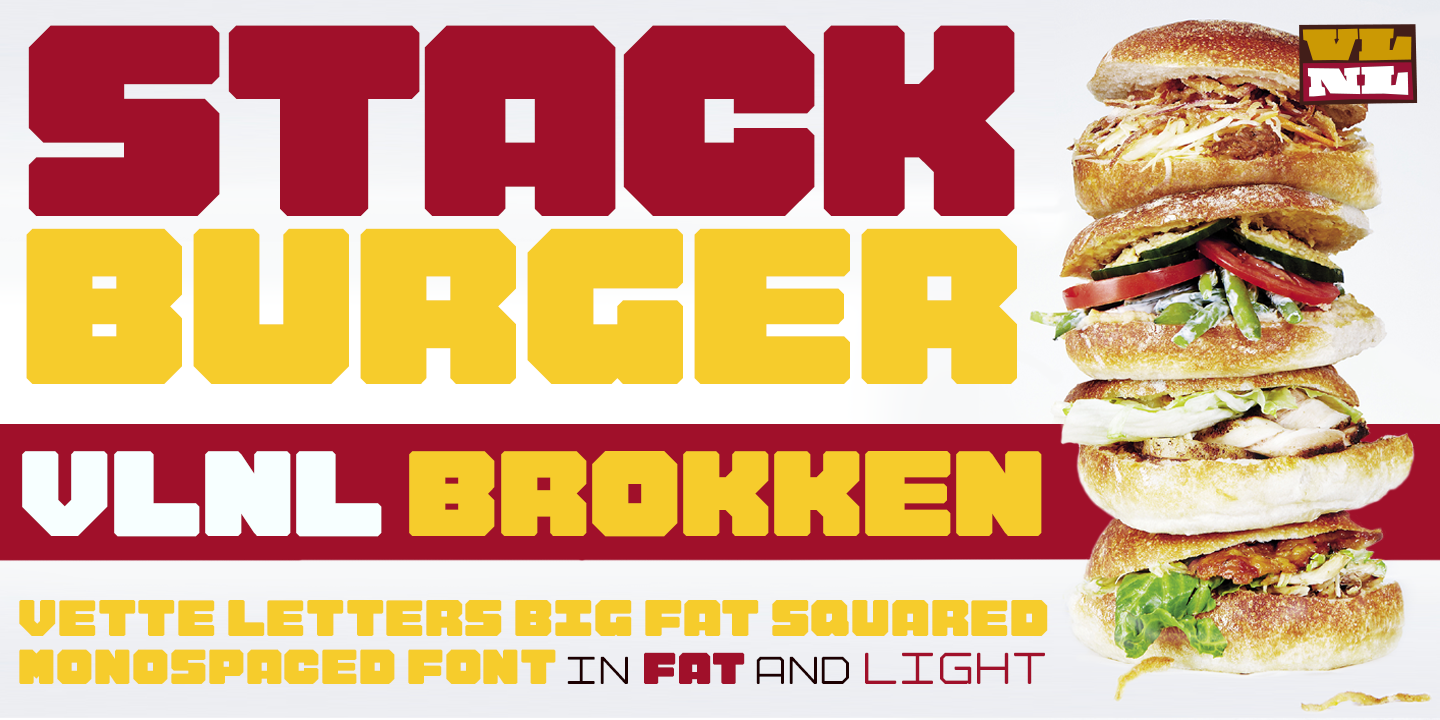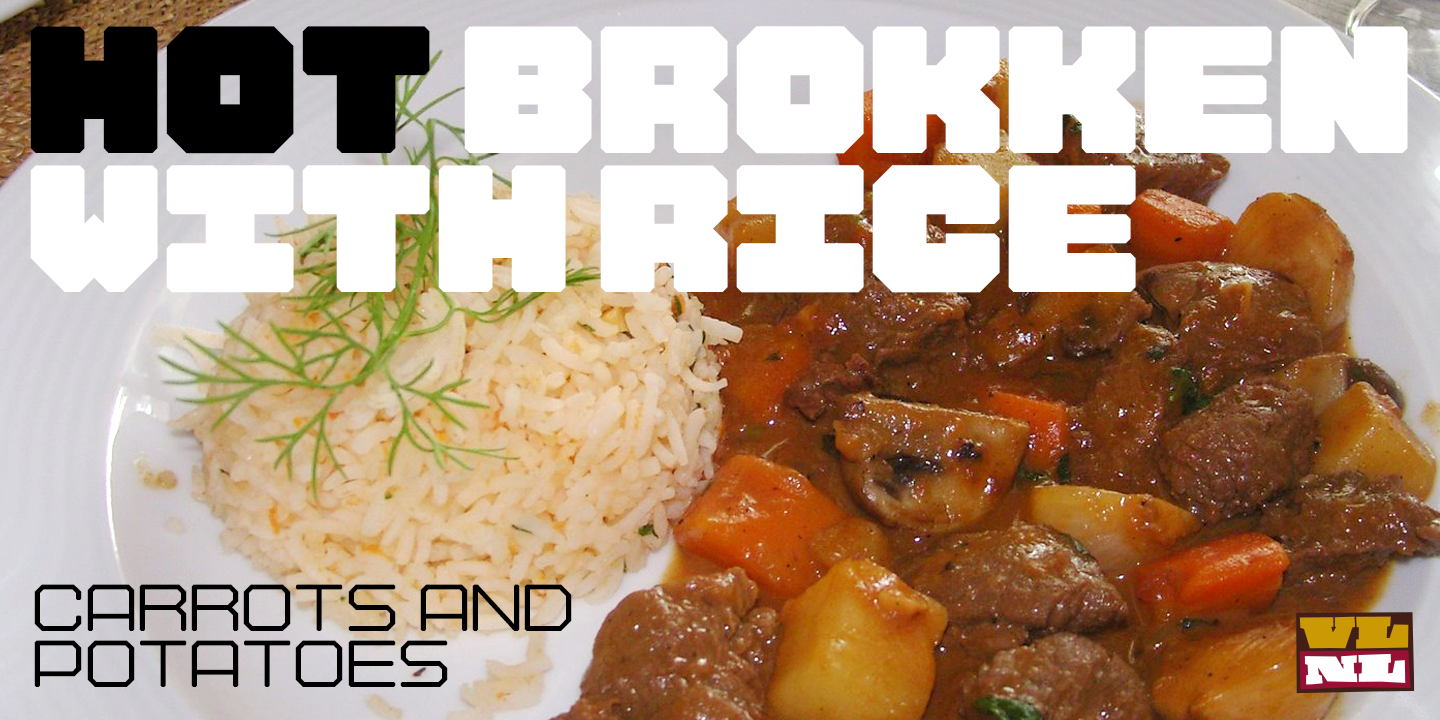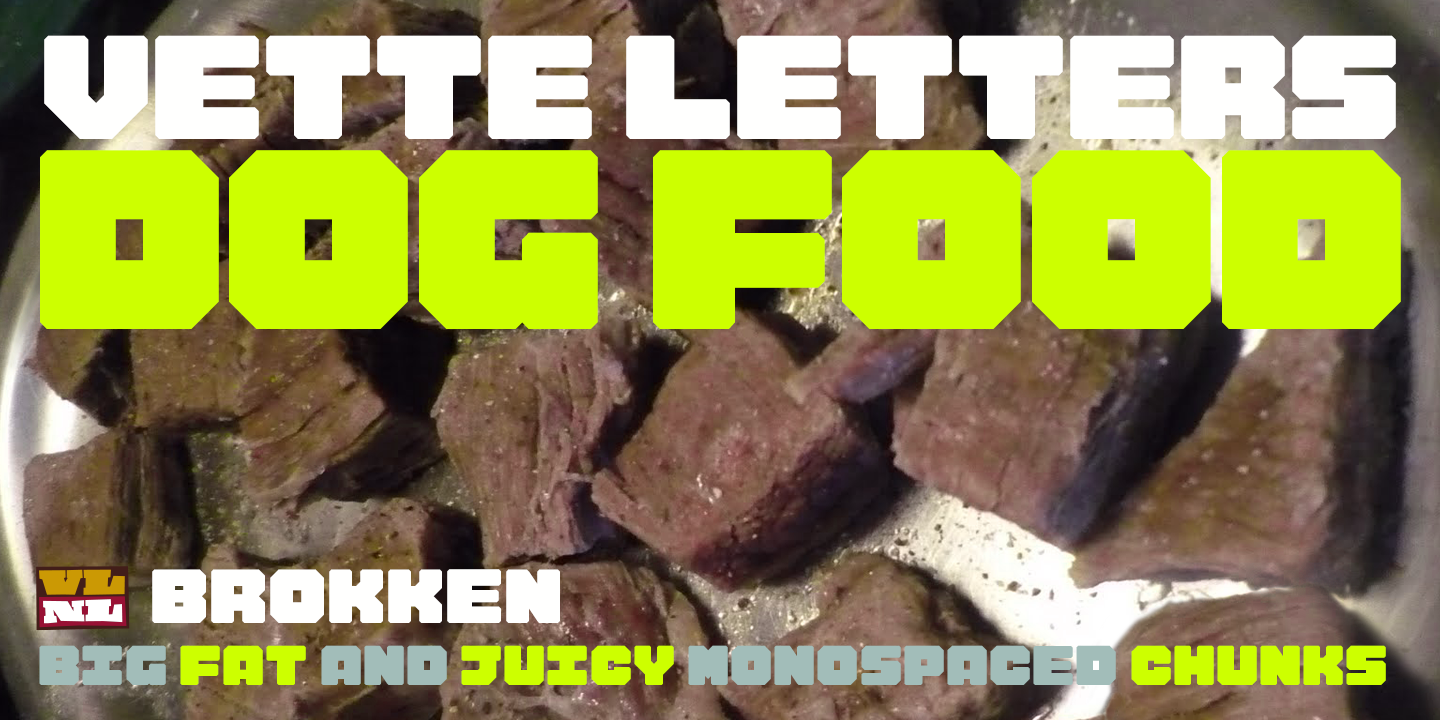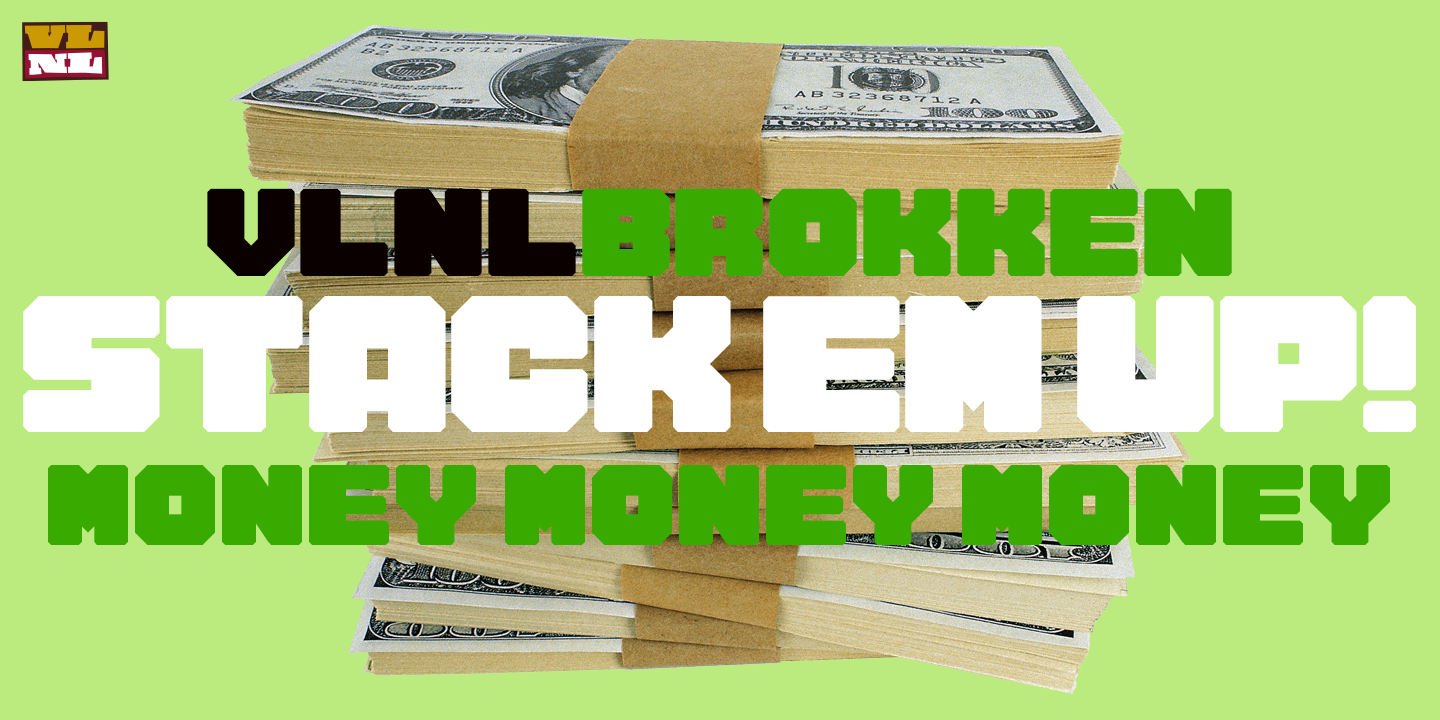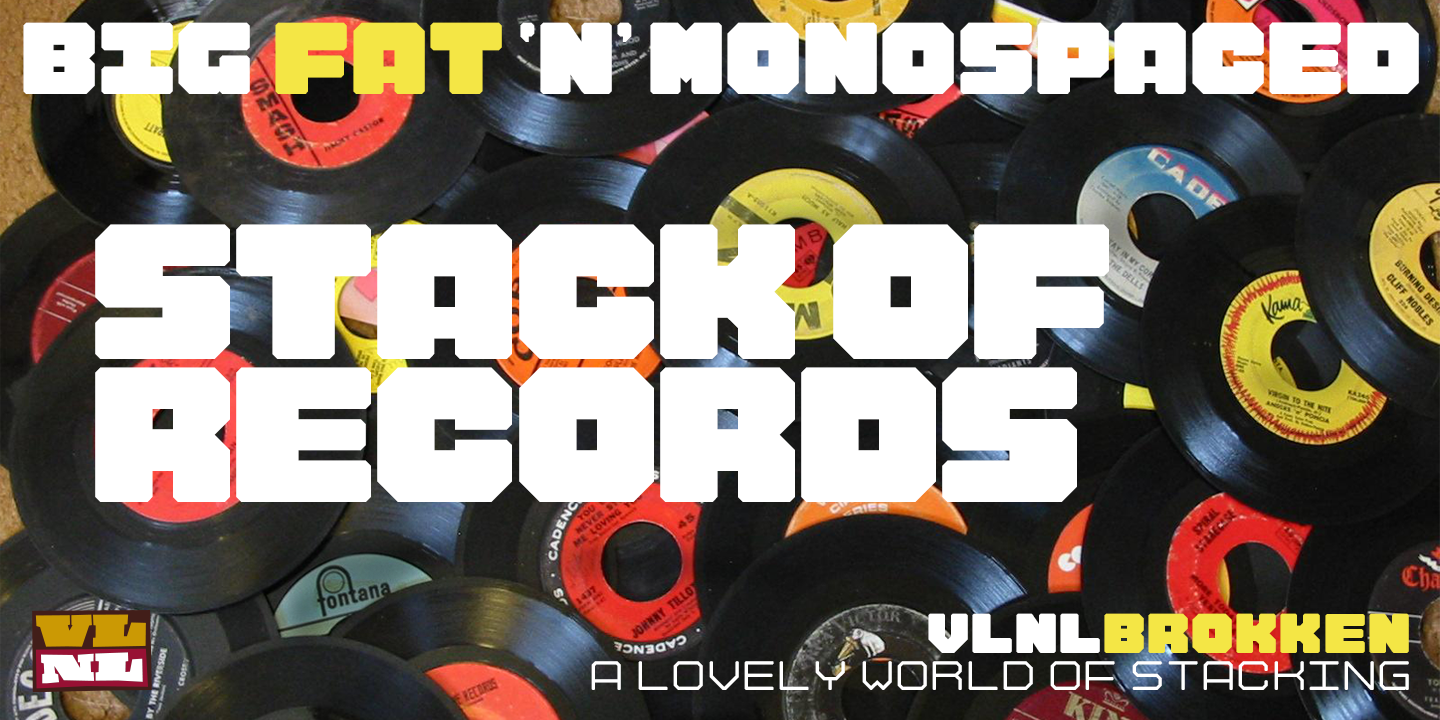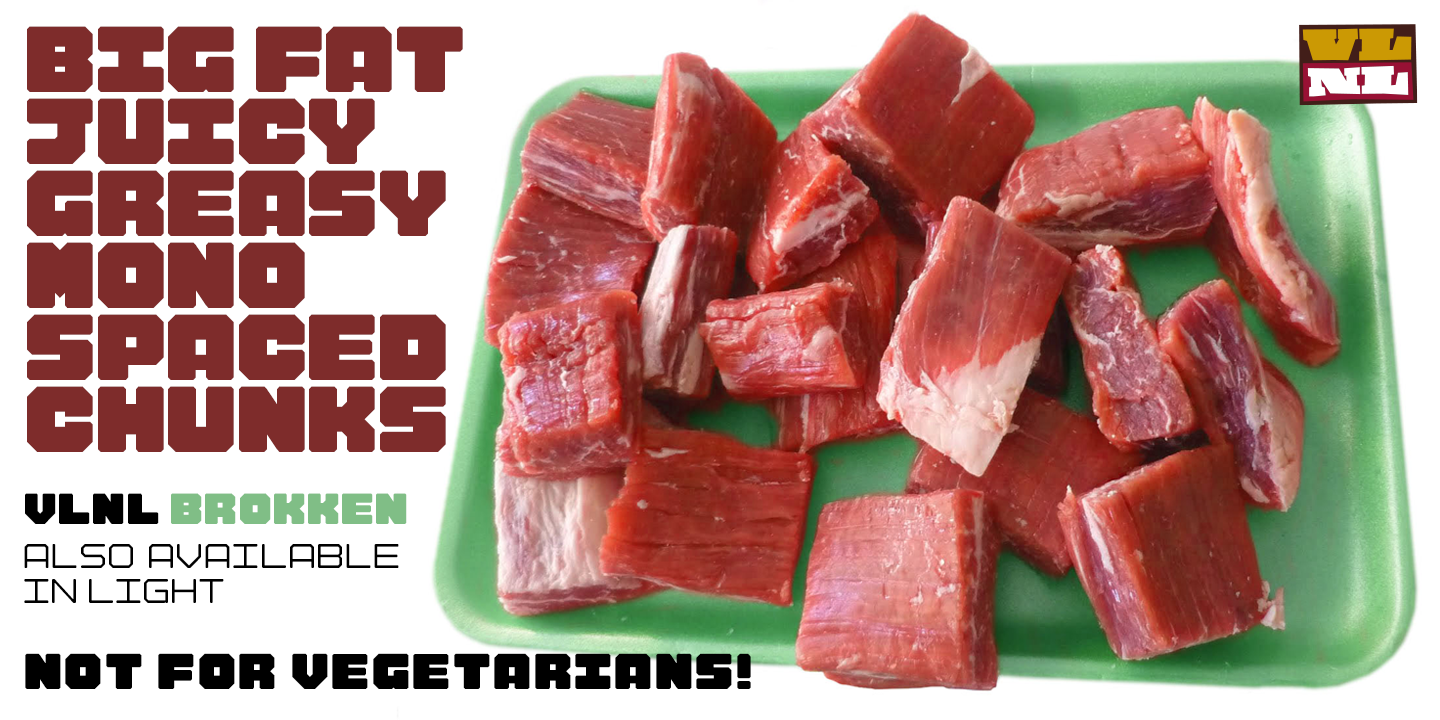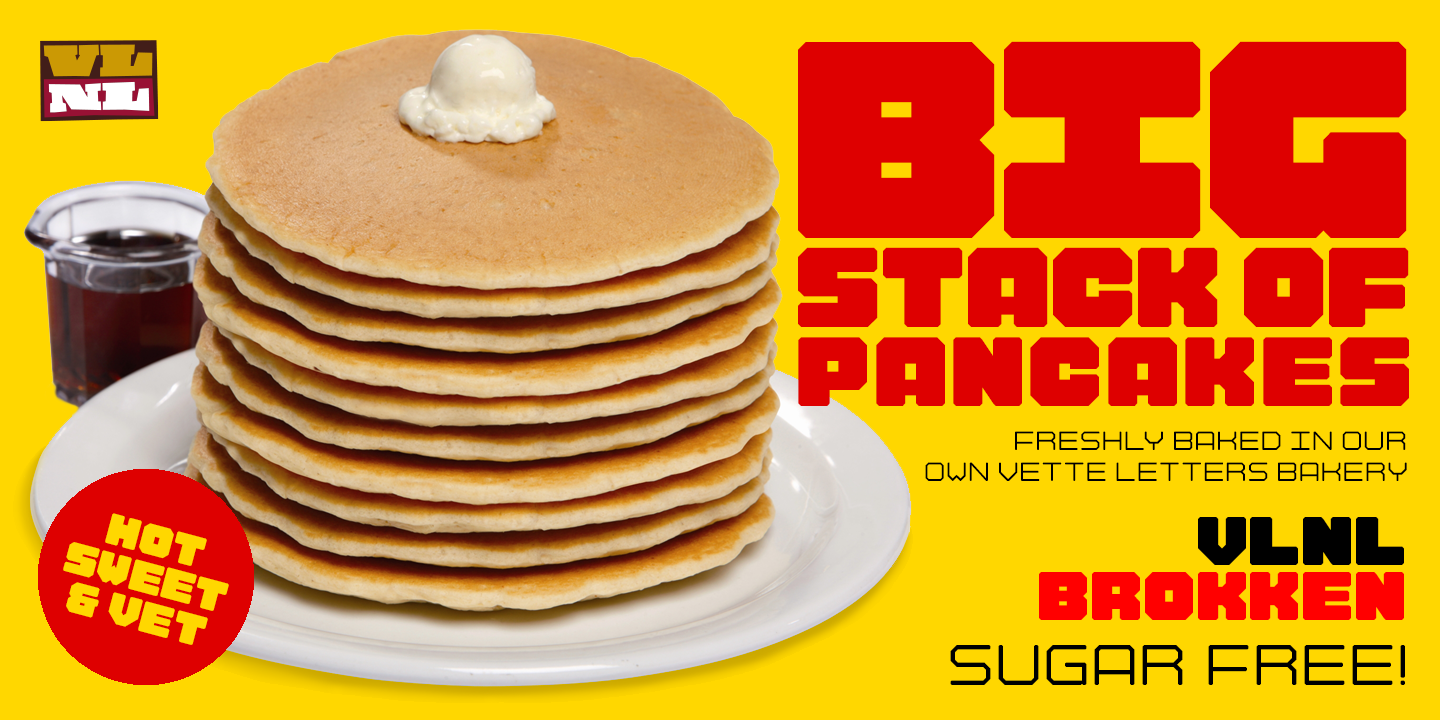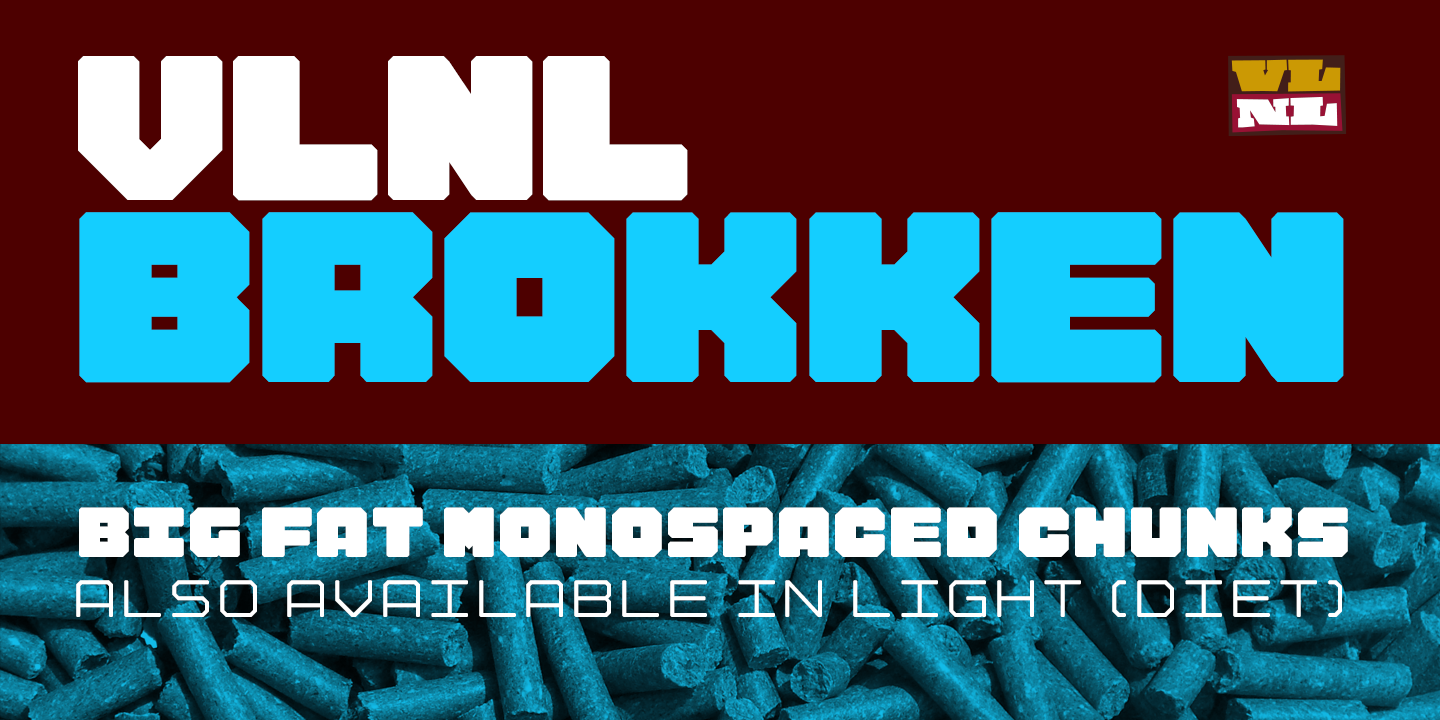
'Brokken’ is the Dutch word for ‘chunks’. They are the hearty specialty of the house, prepared by the ship’s cook Donald DBXL Beekman. Nice'n'greasy and monospaced, you'll always find a decent way to cram the letters in. Brokken is straightforward, straight-lined with beveled corners, and all caps. For the ones who have to watch their weight, or who simple don’t like their fonts to be too fatty, DBXL designed a diet version called Brokken Light. With their big contrast, both weights combine very well and are great for making ultra-compact ribbon headlines or stacking vertically.